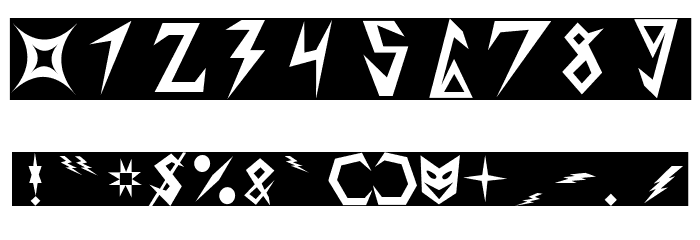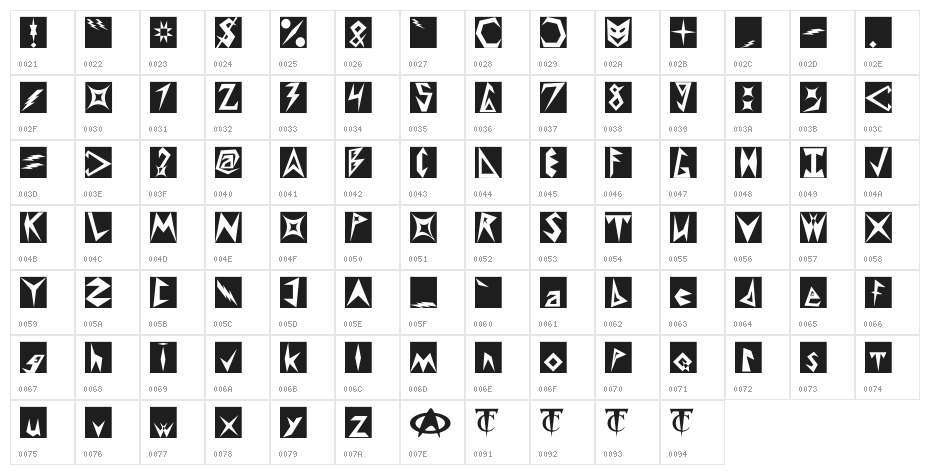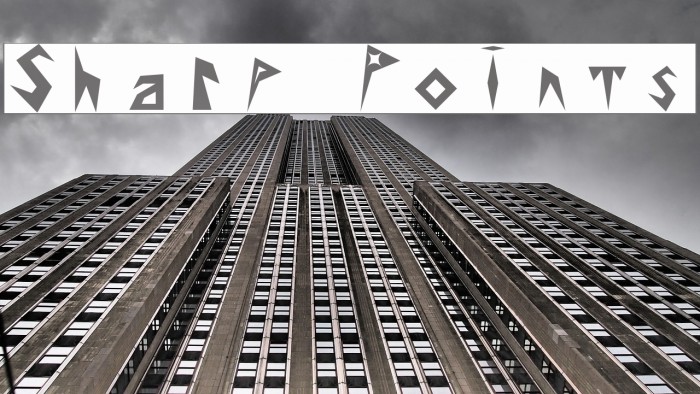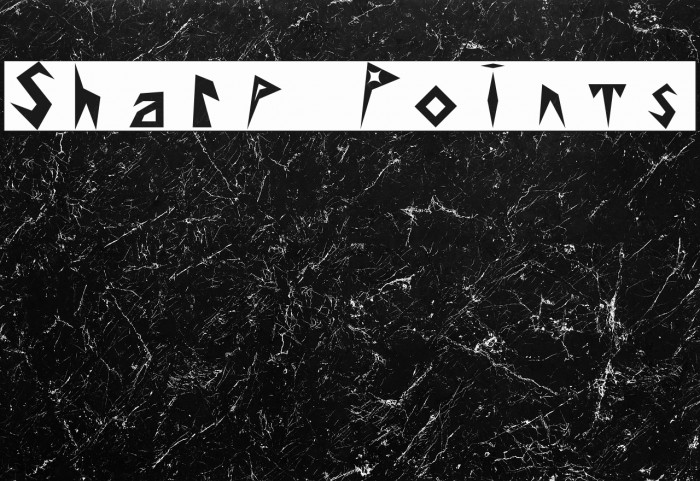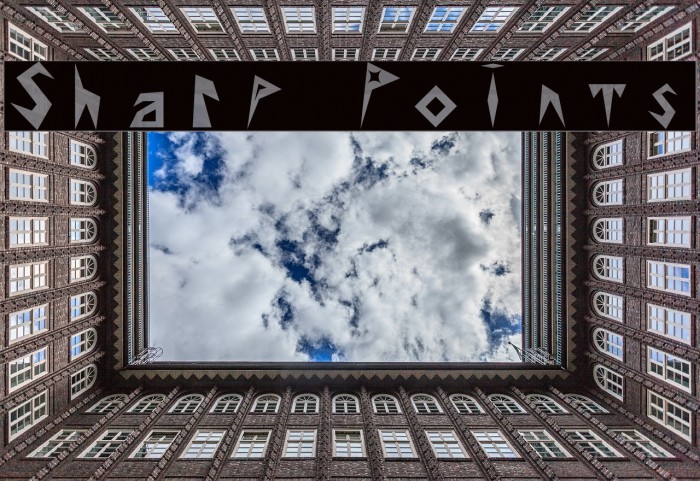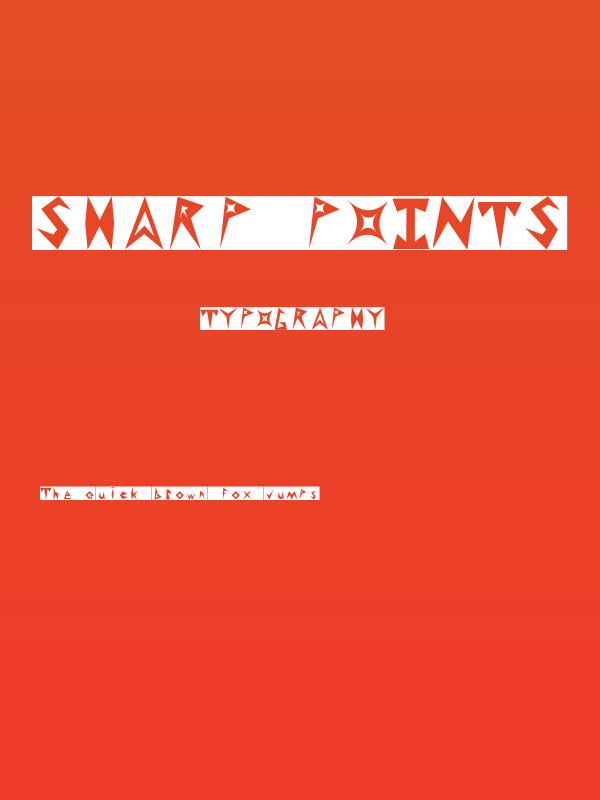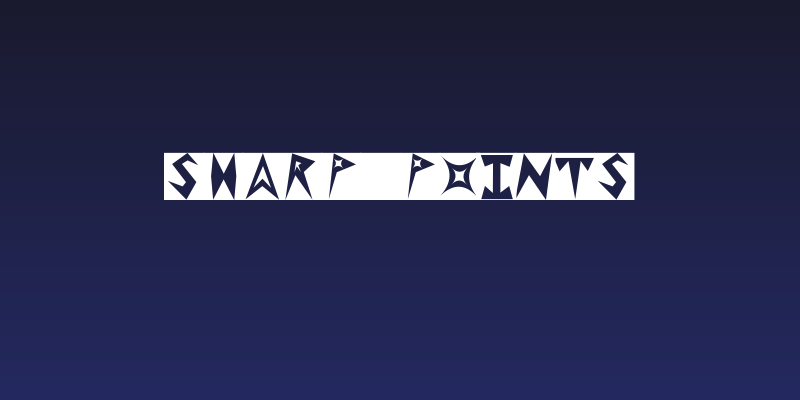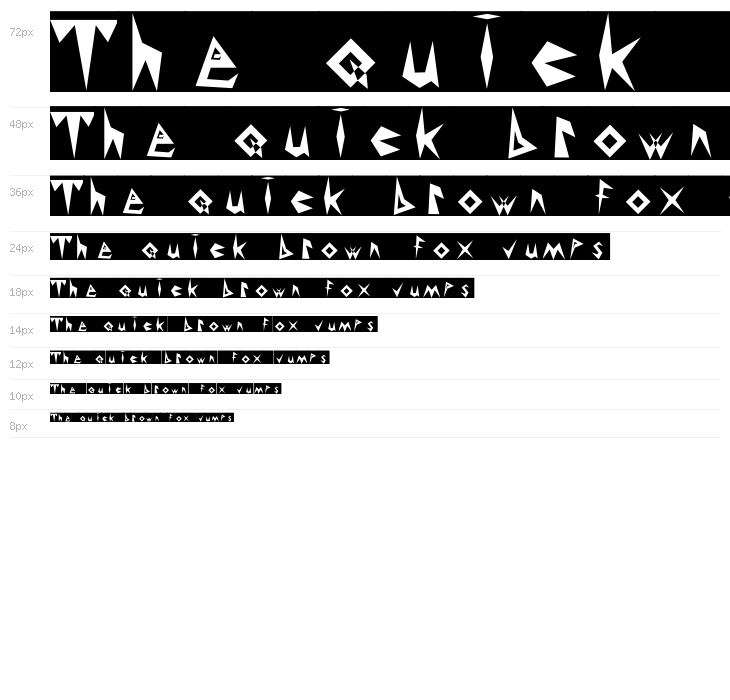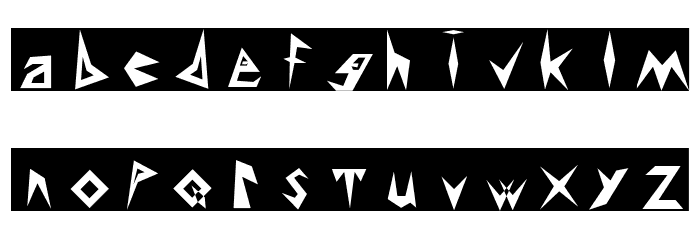
Sharp Points Font
Sharp Points Description
This font features a bold and edgy design with sharp, angular points and geometric shapes. Each character is crafted with a distinct, aggressive style that gives it a dynamic and powerful appearance. The uppercase and lowercase letters maintain a consistent theme of sharp edges and pointed tips, creating a cohesive and striking visual impact. Numbers and special characters follow the same design principles, ensuring uniformity across the entire set. The font's unique style makes it ideal for projects that require a bold statement or a modern, avant-garde aesthetic.
| Overall Style | Modern, Edgy |
| Proposed Projects | Ideal for album covers, posters, logos, and any project needing a bold, modern statement. |